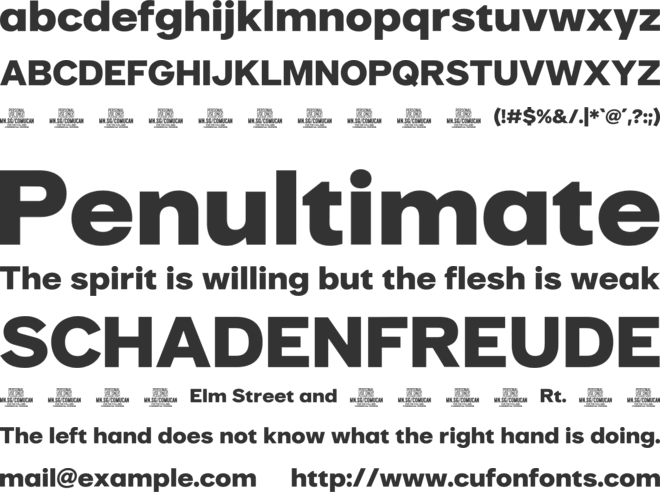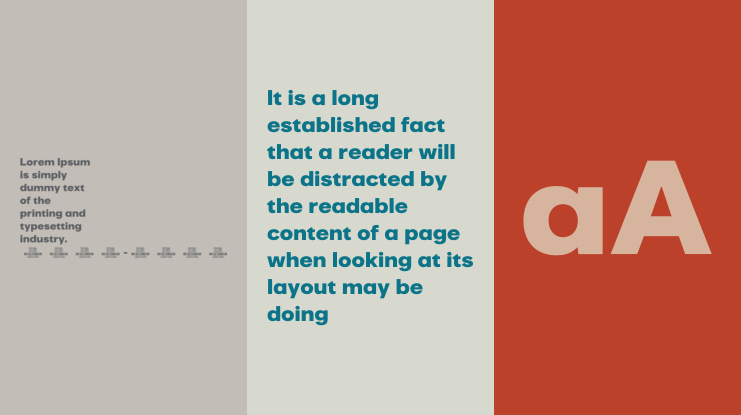
Comucan PERSONAL USE Font
NOTE: This font is for PERSONAL USE ONLY!To purchase a commercial license, visit:https://www.mansgreback.com/product/comucanComucan is a modern geometric sans serif with a bold, rounded voice. It is built on simple shapes and even rhythm, giving the letters a calm confidence that feels both contemporary and human. The forms are soft without being vague, and sturdy without feeling heavy.For questions, please visit https://mansgreback.com/faq